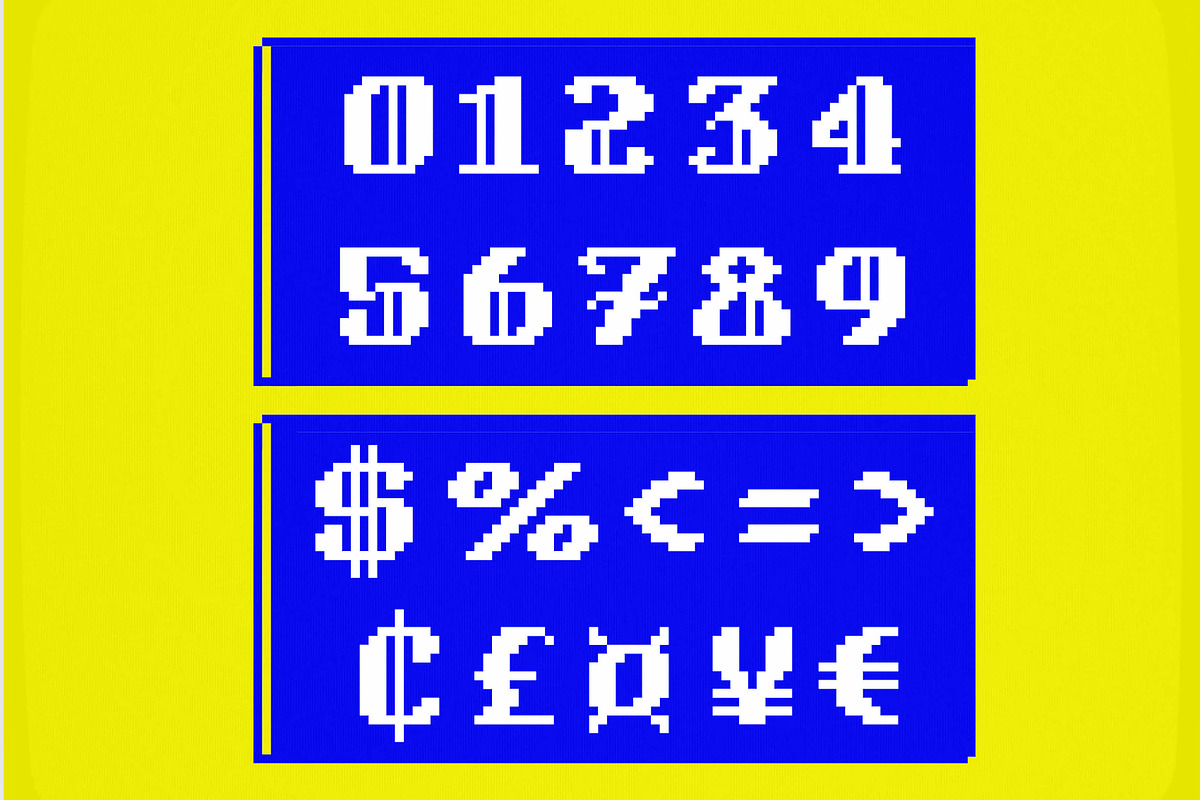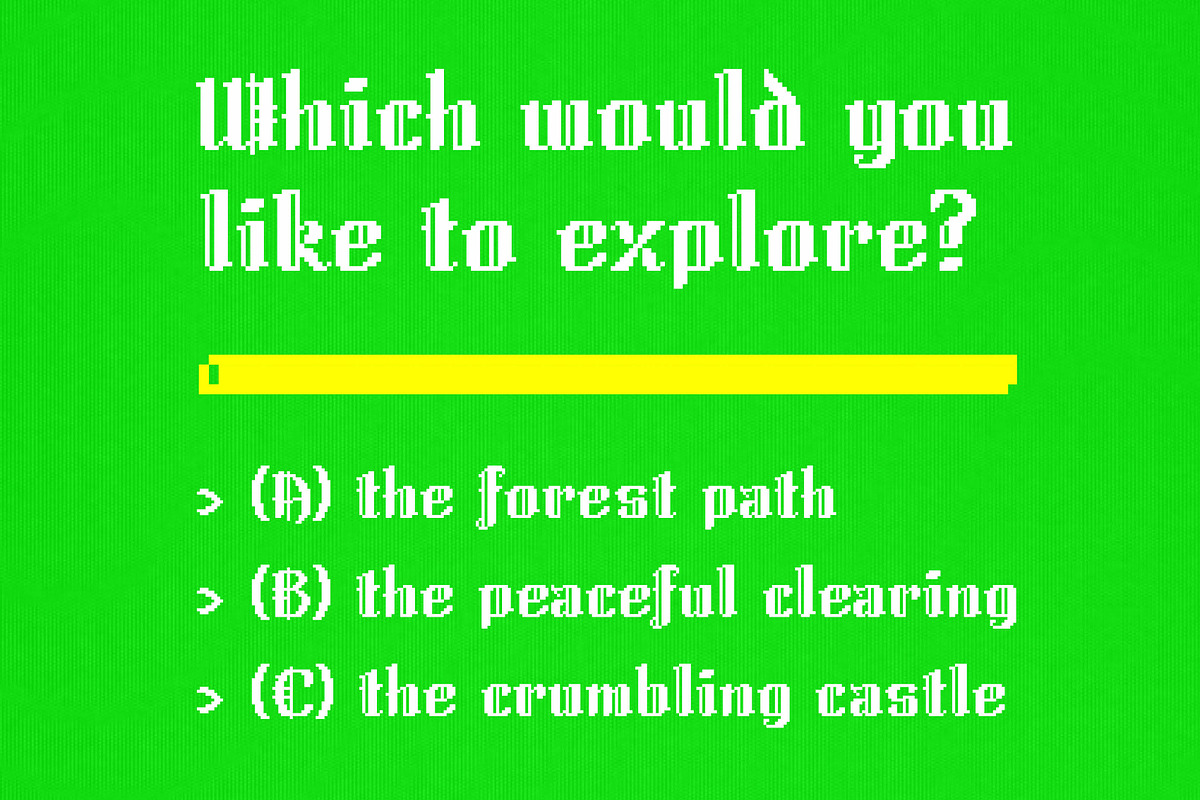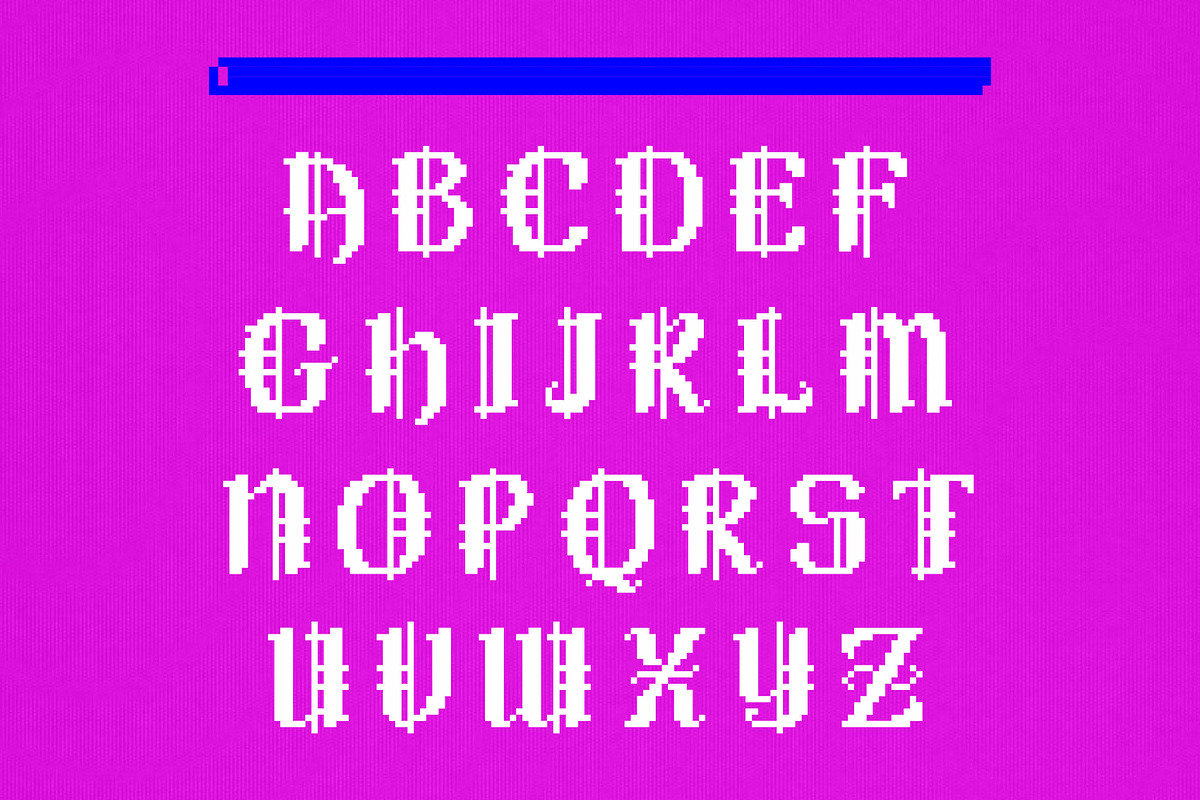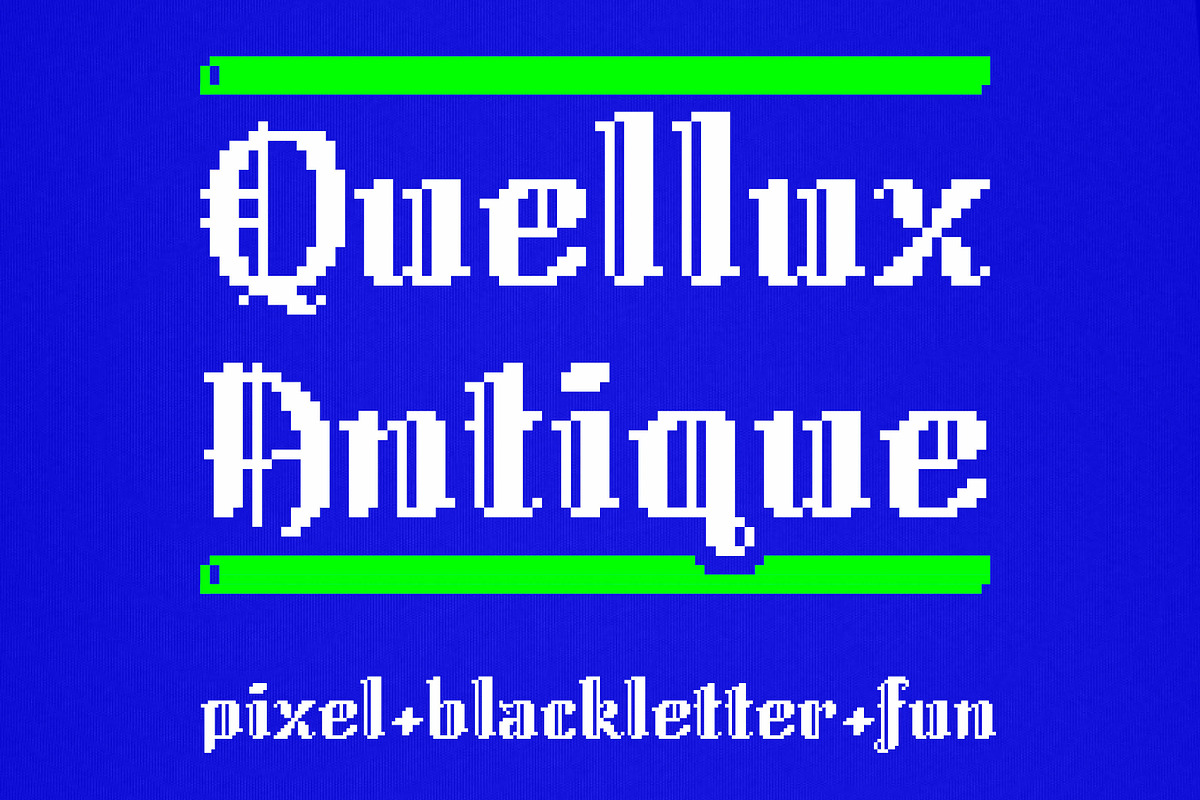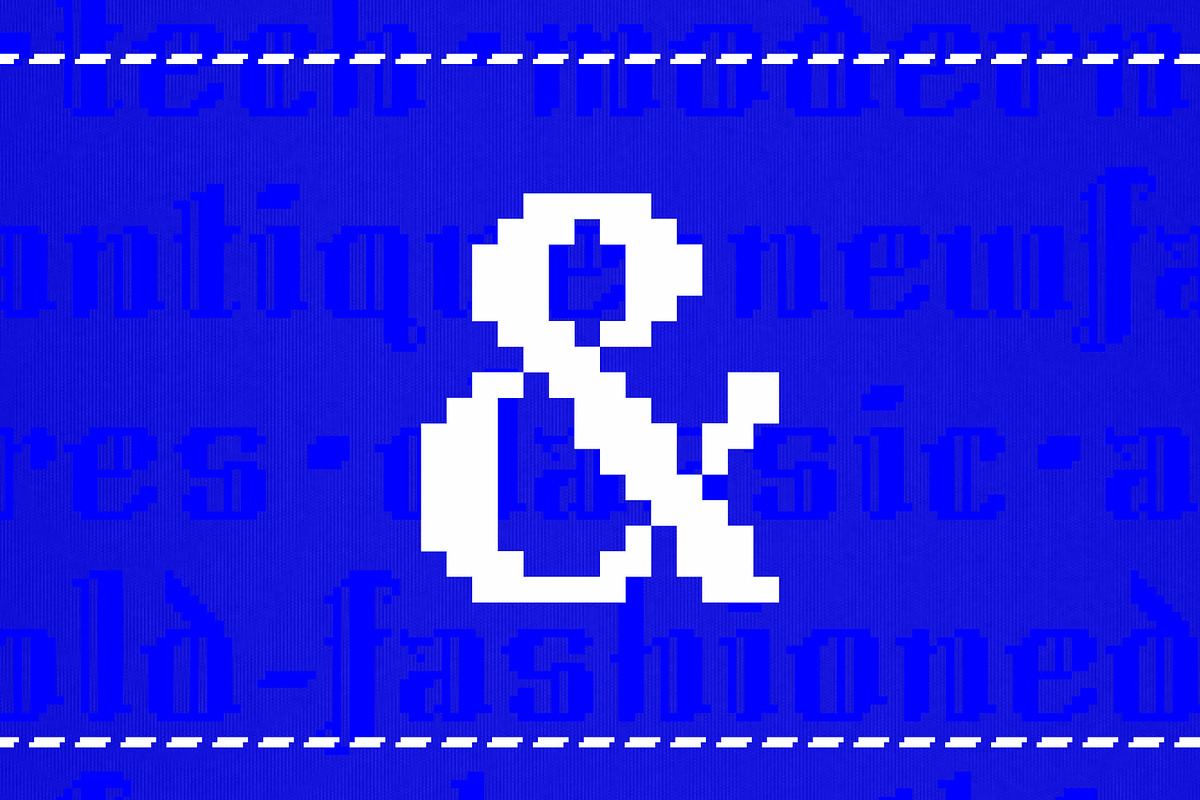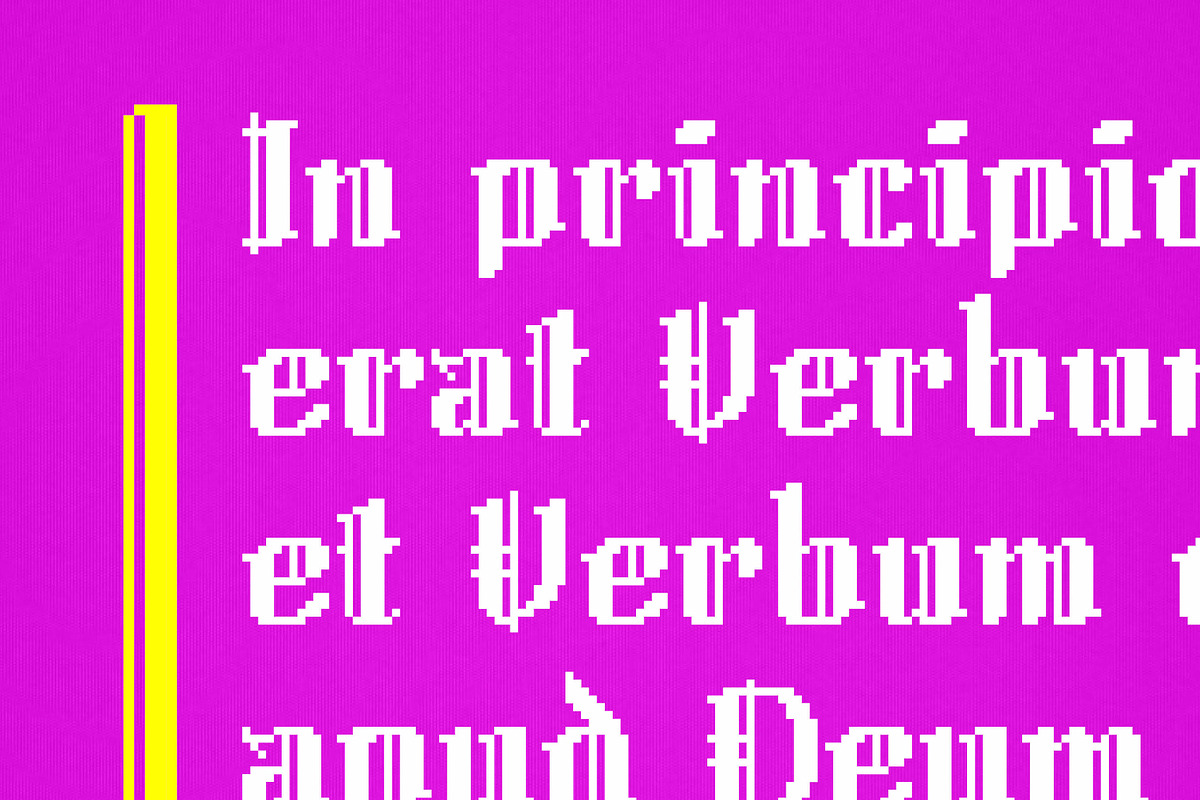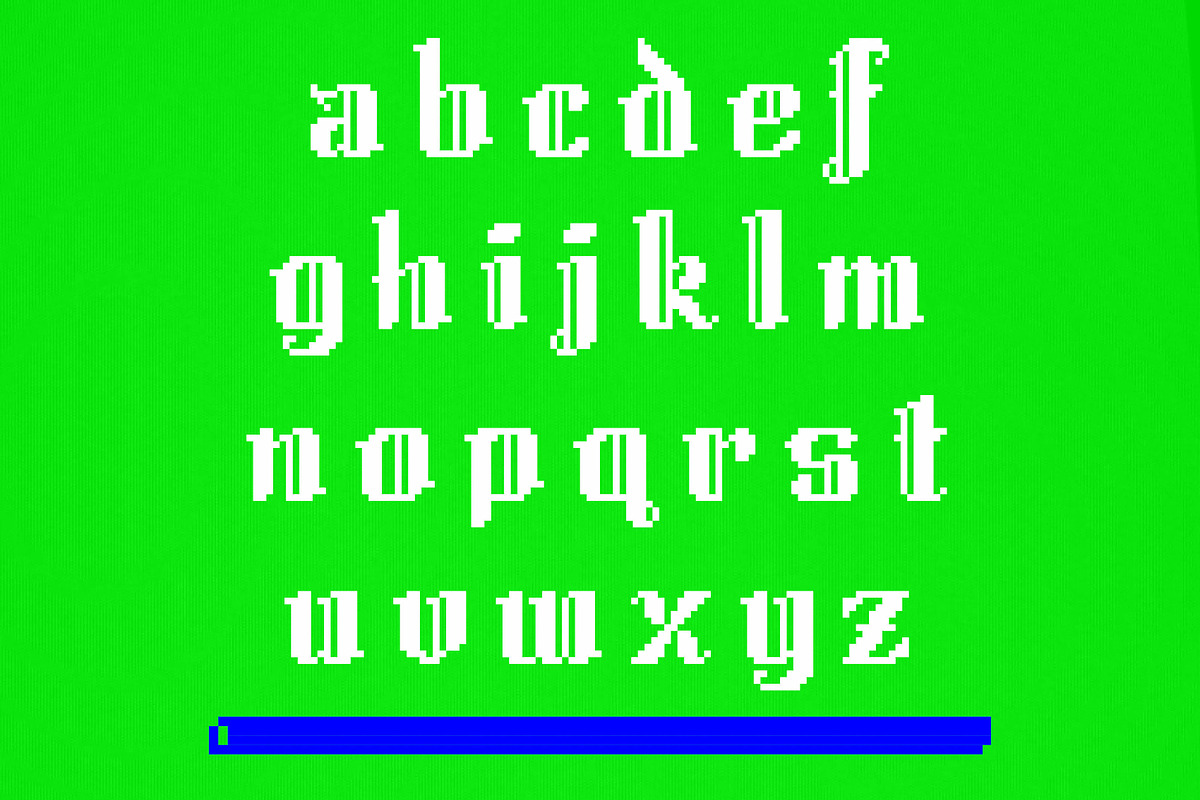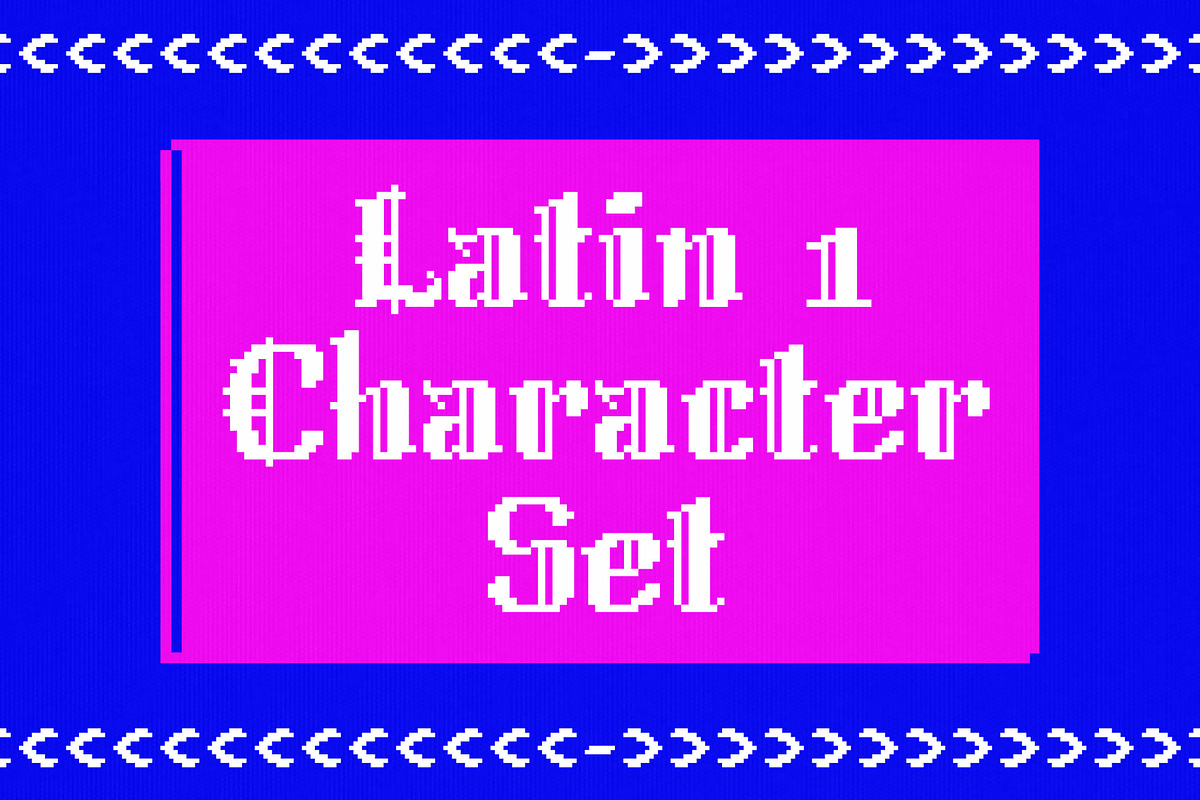
Quellux Antique - Pixel Blackletter
Pixel + blackletter + fun! Quellux Antique combines classic blackletter forms with pixel font quirk, with a healthy dose of character that's all its own. Perfect for a classic fantasy indie game, virtual Dungeons and Dragons, or maybe something with medieval robots? Quellux Antique is surprisingly readable at small sizes and pleasantly strange at larger ones.